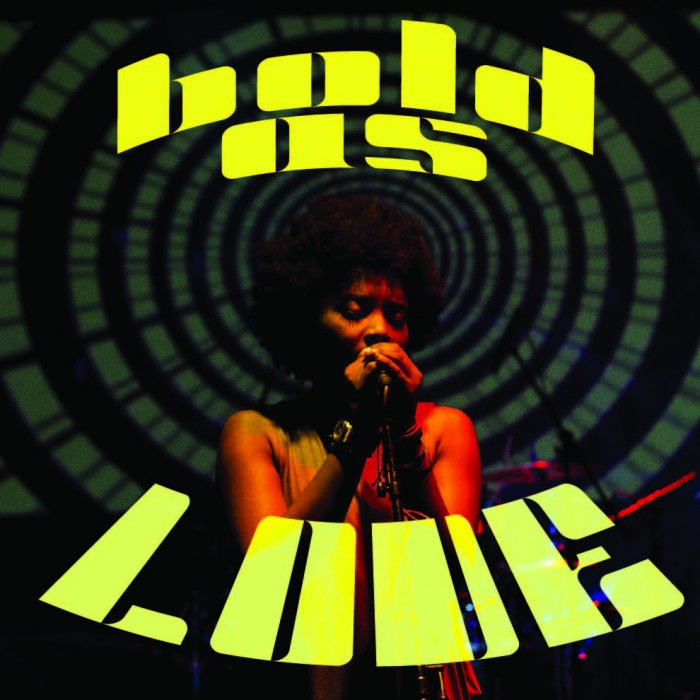
• A funky, 70s-inspired typeface with both sharp and curved attributes.
Very compact and thick, not ideal for large bodies of text. However, catches the eye when used as a title or header.